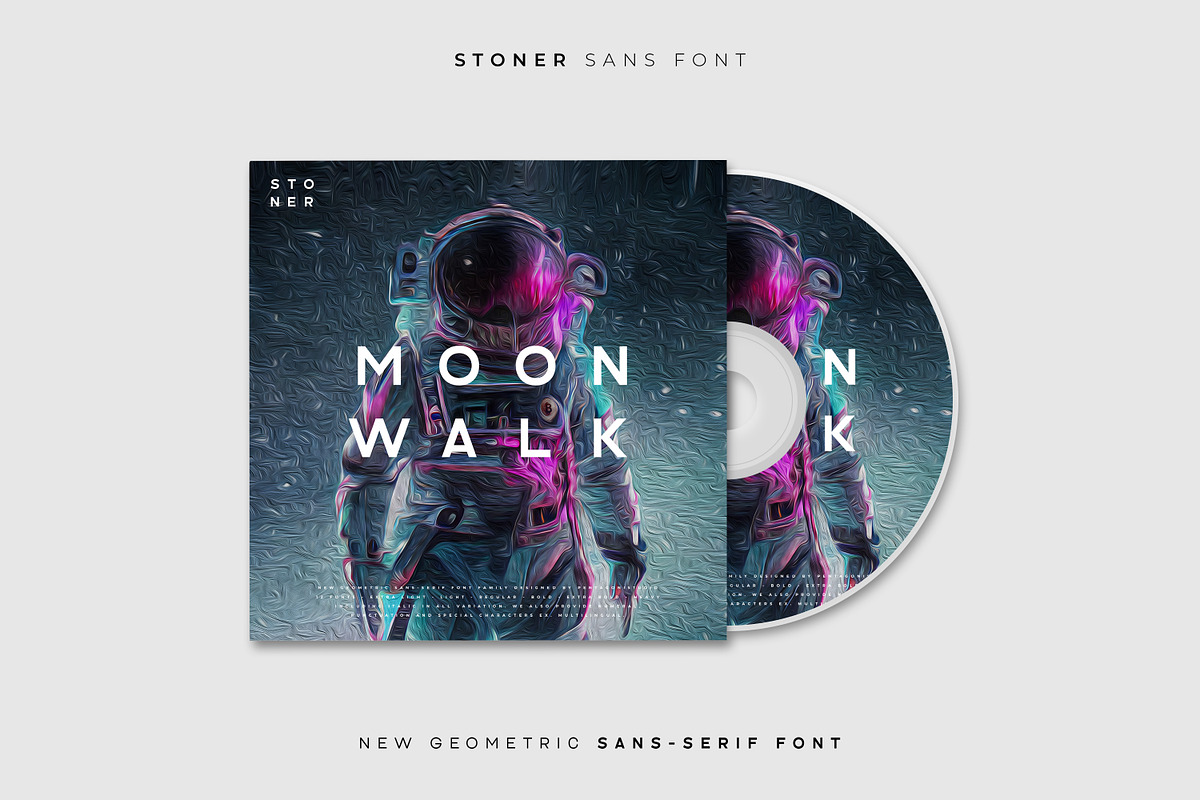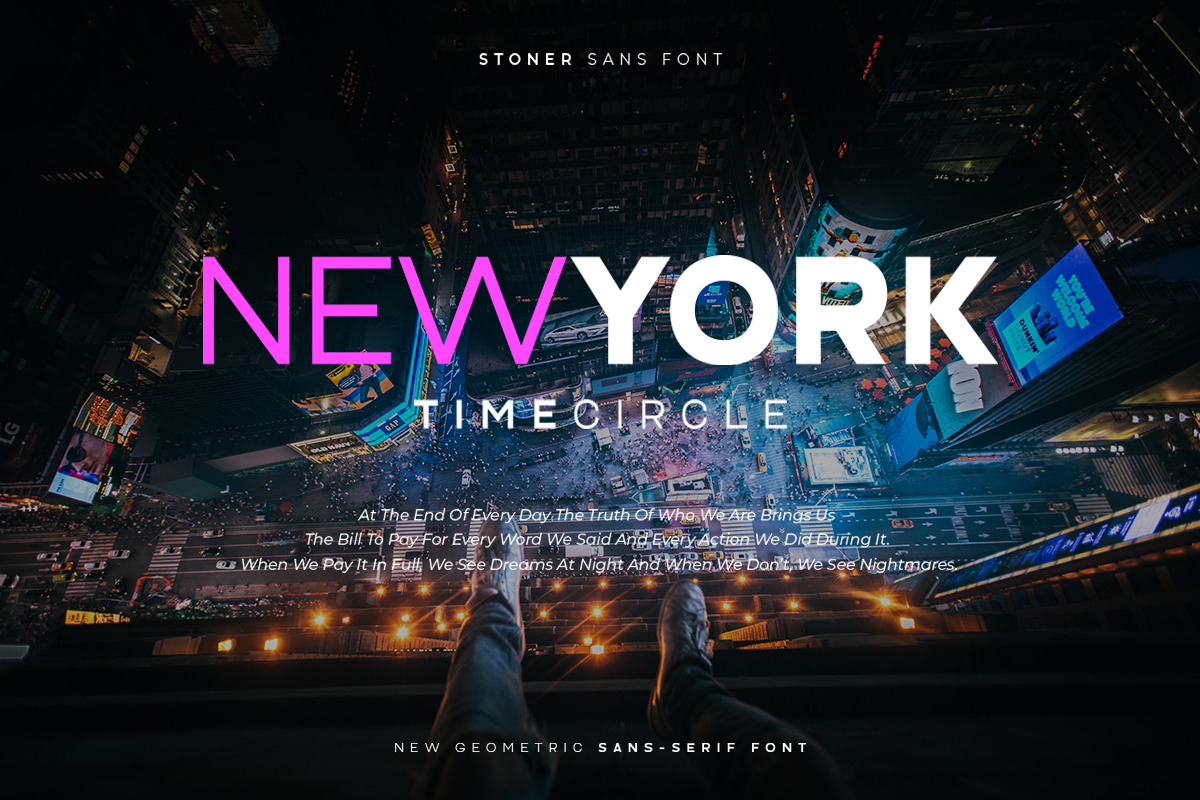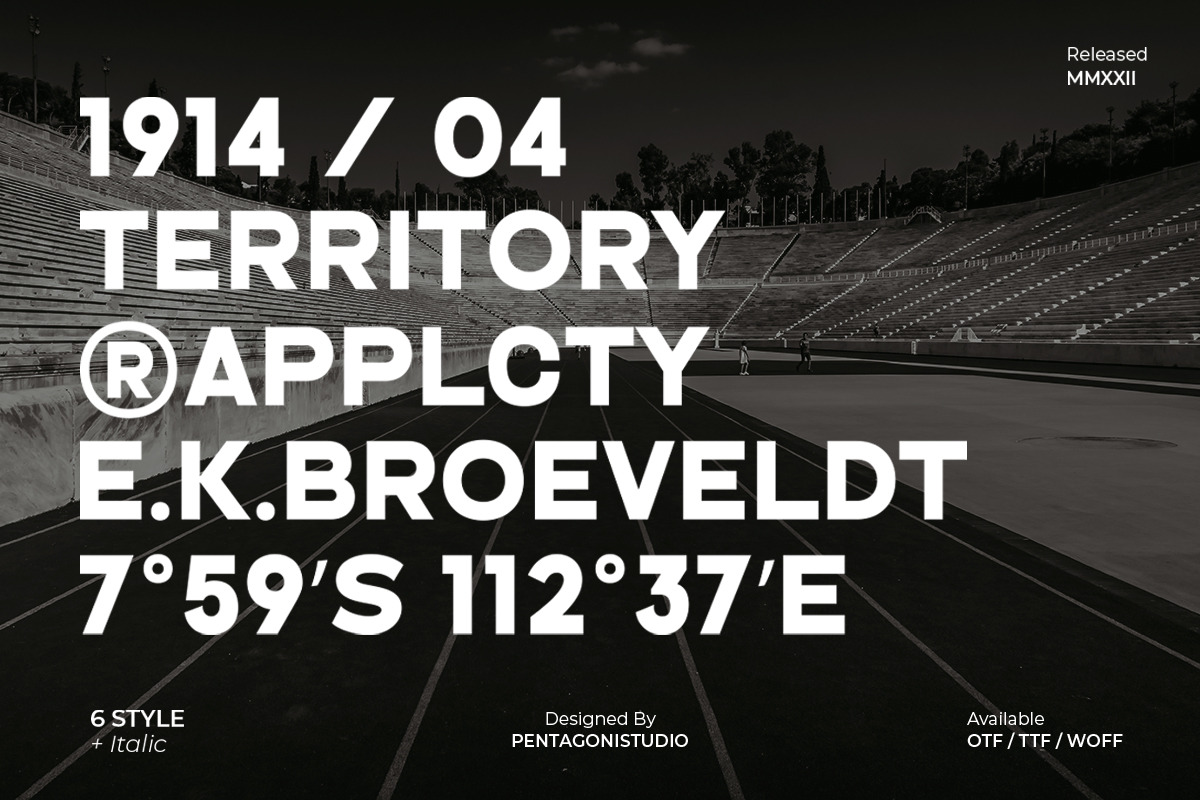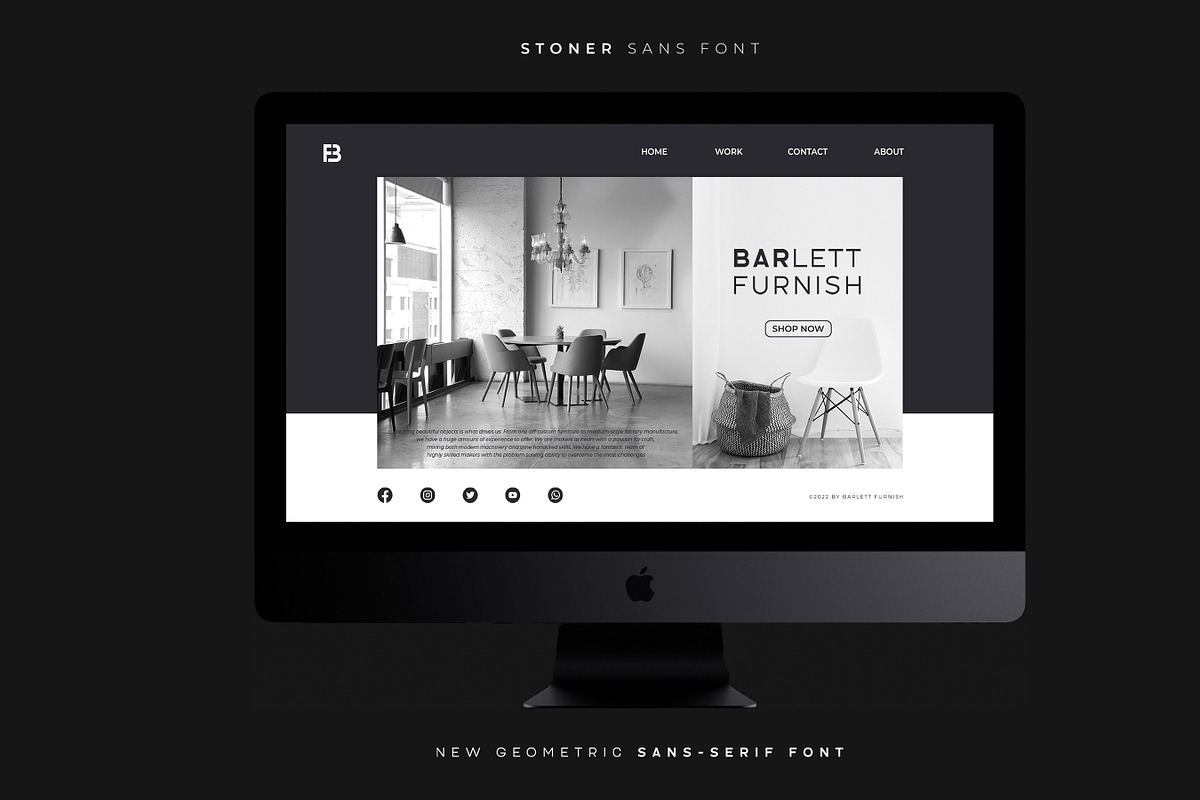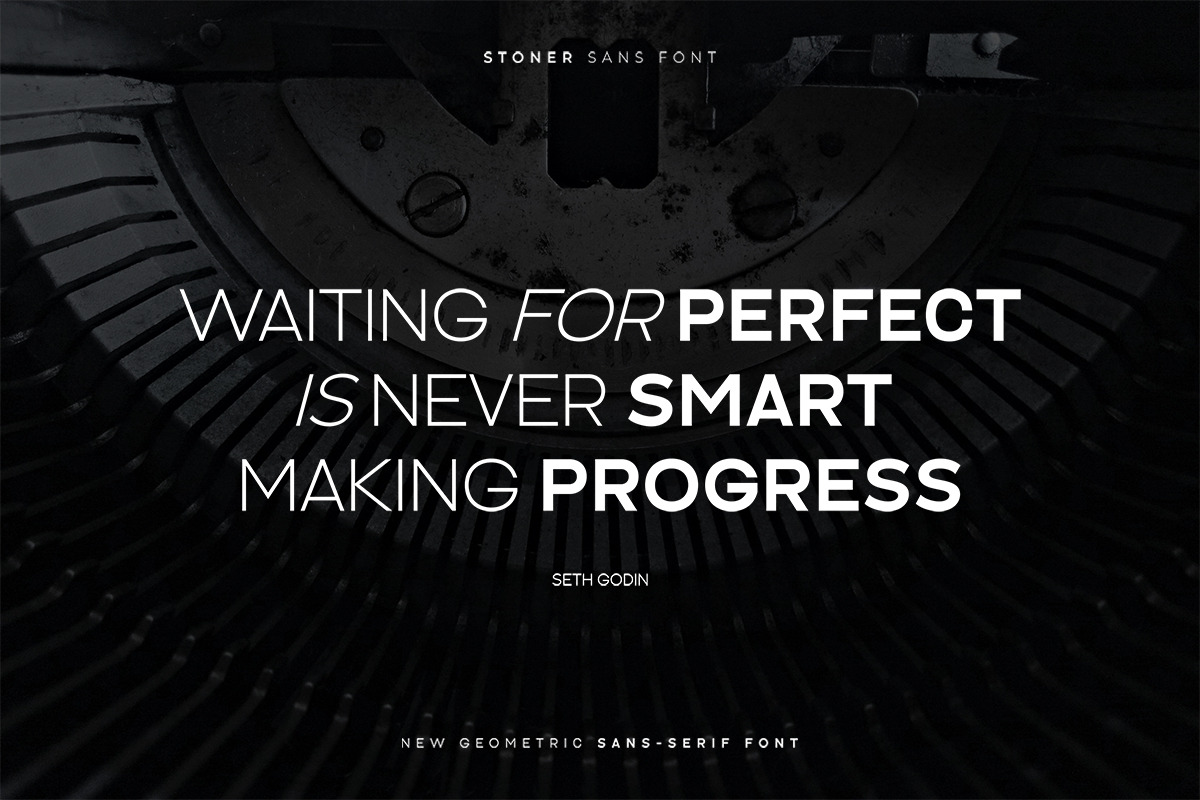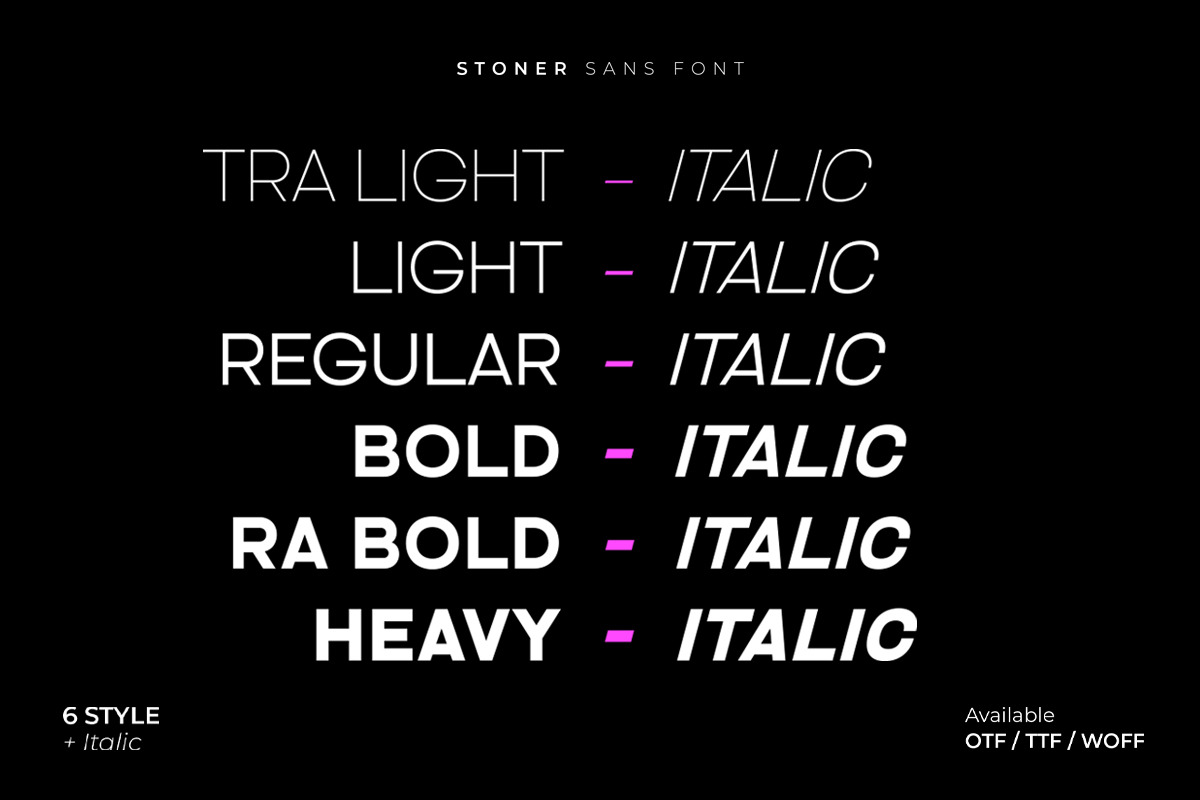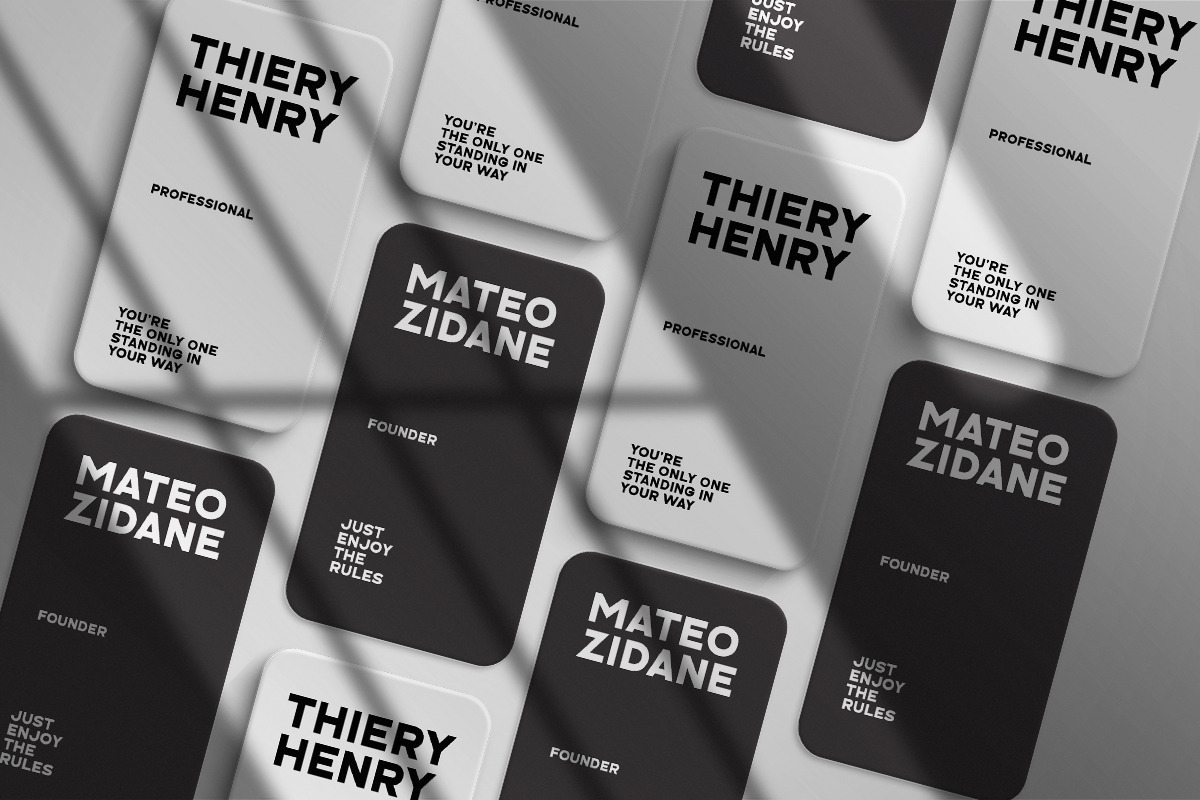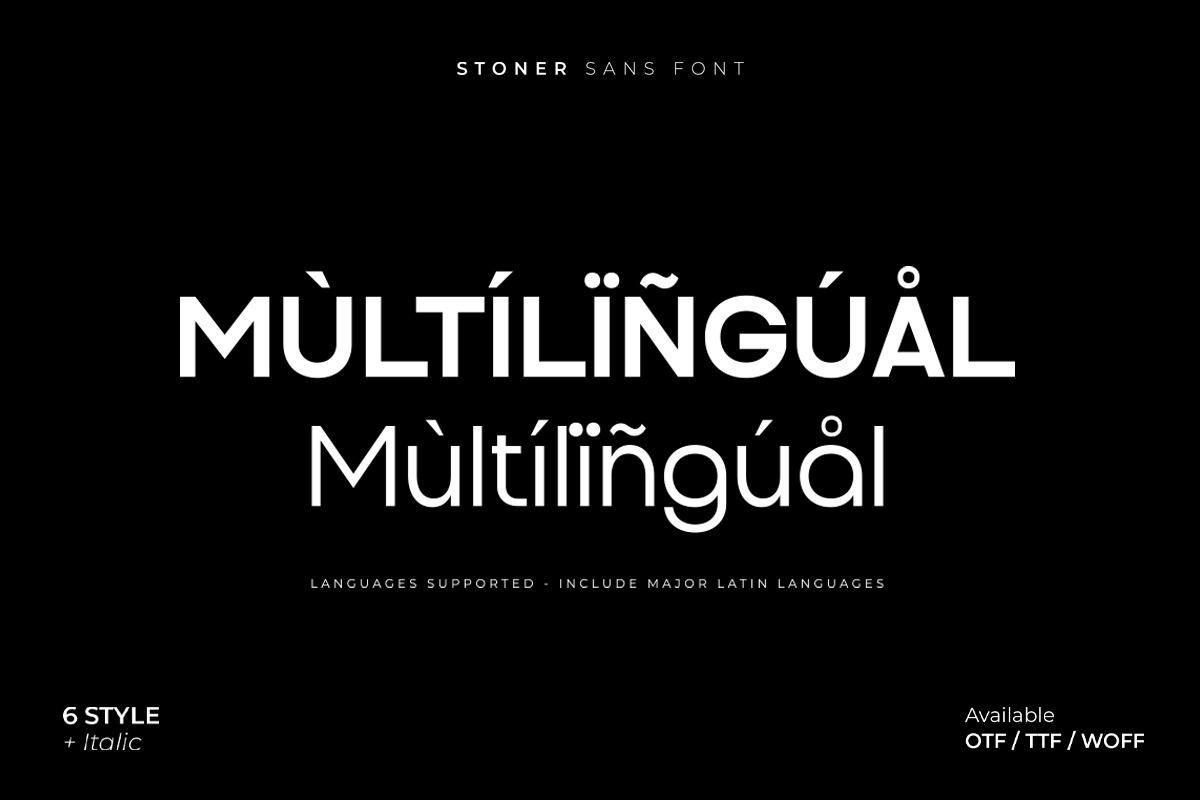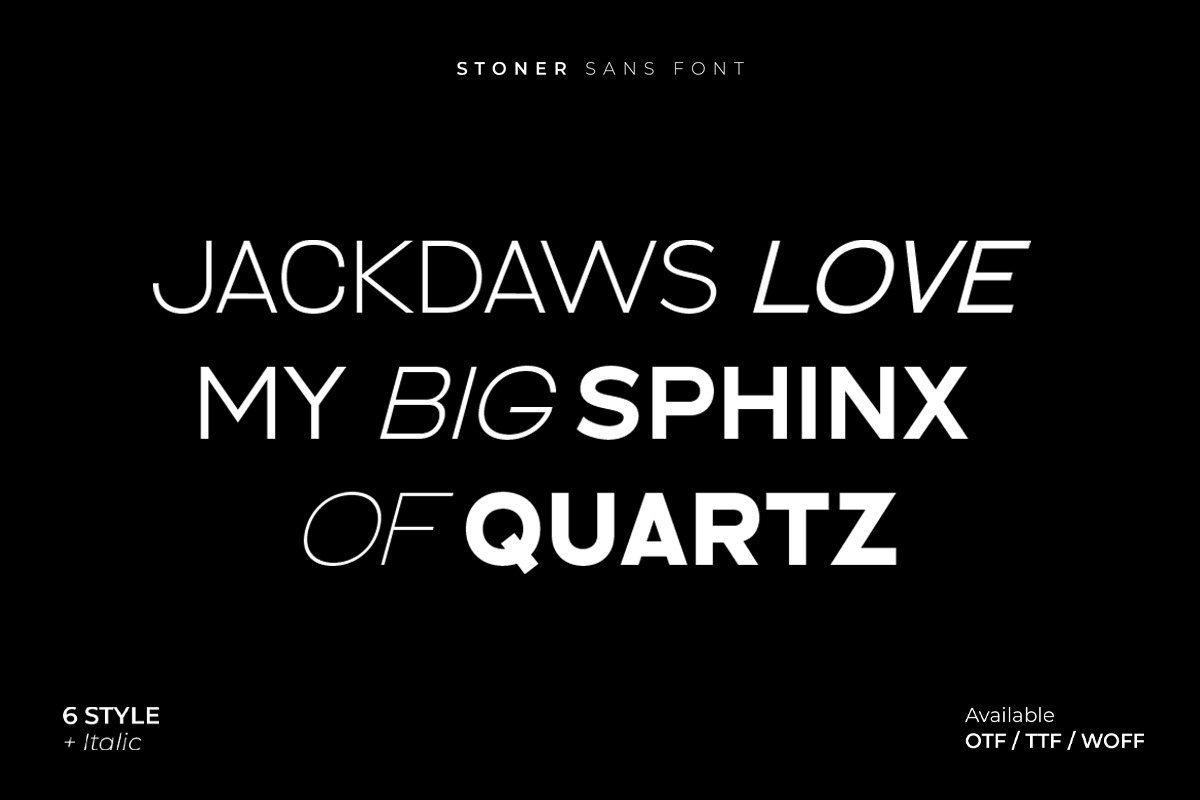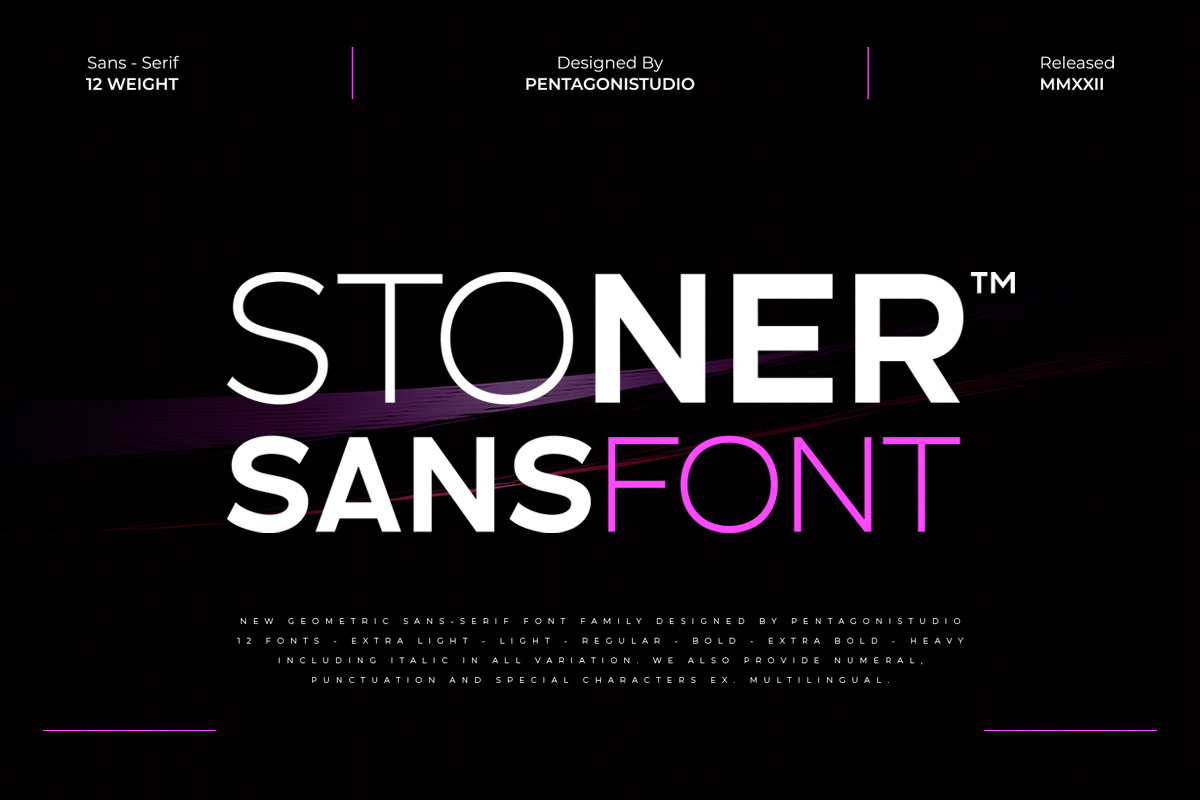
Stoner Is New Geometric Family Sans Inspired By Modern and Elegant Font.
- STONER EXTRA LIGHT - ITALIC
- STONER LIGHT - ITALIC
- STONER REGULAR - ITALIC
- STONER BOLD - ITALIC
- STONER EXTRA BOLD - ITALIC
- STONER HEAVY - ITALIC